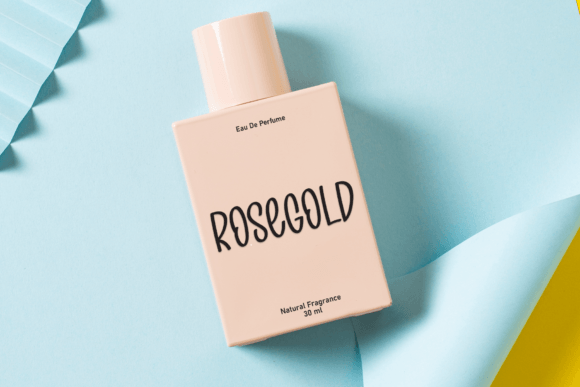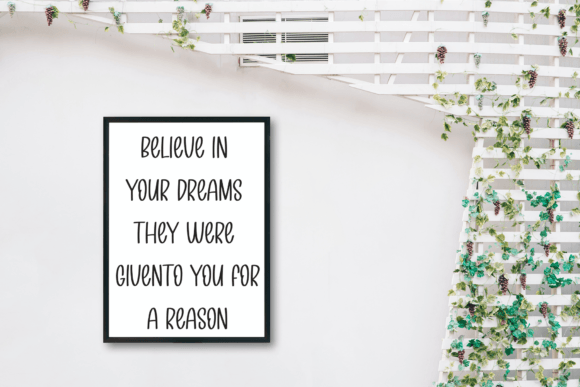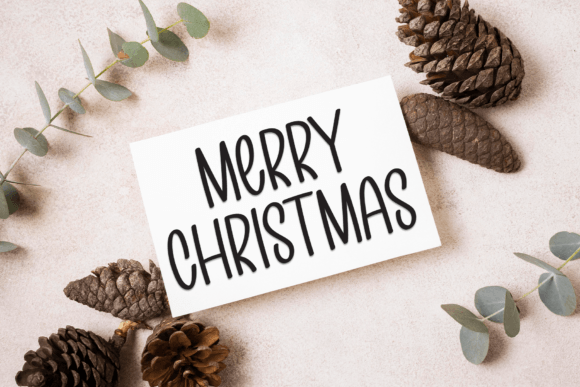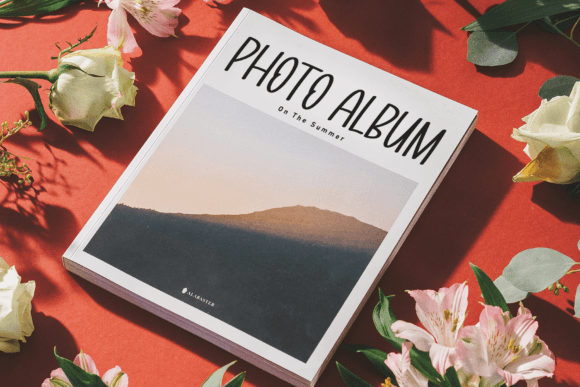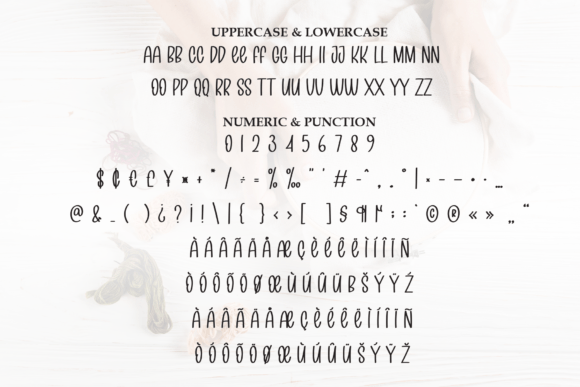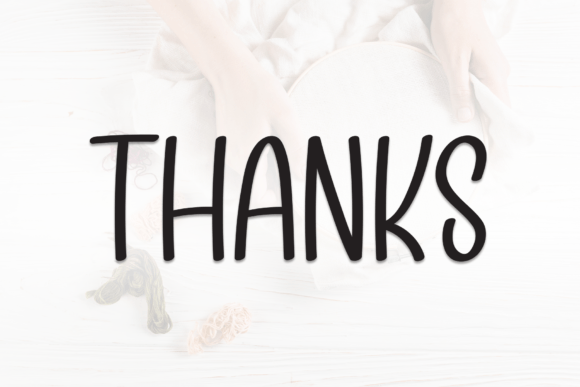
Introducing Handmade Font: A Sweet and Friendly Handwritten Display Font
Are you looking for a font that can add a personal touch to your designs? Do you want to create wedding invitations, cards, or other materials that exude warmth and friendliness? Look no further than Handmade Font, a beautiful handwritten display font that’s perfect for adding a fun and playful touch to your projects.
What is Handmade Font?
Handmade Font is a carefully crafted handwritten display font that’s designed to bring a sense of sweetness and friendliness to your designs. With its cute and fun style, this font is ideal for creating wedding invitations, cards, and other materials that require a personal touch. Whether you’re a designer, crafter, or DIY enthusiast, Handmade Font is the perfect choice for adding a touch of warmth and personality to your projects.
Key Features of Handmade Font
- Handwritten style: Handmade Font features a beautiful handwritten style that’s perfect for creating personal and heartfelt designs.
- Cute and fun: This font is designed to be cute and fun, making it ideal for creating designs that require a playful touch.
- Display font: Handmade Font is a display font, making it perfect for headlines, titles, and other prominent text elements.
- Easy to read: Despite its playful style, Handmade Font is easy to read, making it perfect for creating designs that require a clear and concise message.
Uses for Handmade Font
Handmade Font is a versatile font that can be used for a wide range of design projects, including:
- Wedding invitations: Add a personal touch to your wedding invitations with Handmade Font.
- Cards: Create beautiful and heartfelt cards for special occasions with Handmade Font.
- DIY projects: Add a touch of personality to your DIY projects, such as crafts, scrapbooking, and journaling.
- Signage: Use Handmade Font to create eye-catching signage for events, businesses, or personal projects.
Why Choose Handmade Font?
There are many fonts available that offer a similar style to Handmade Font, but here are a few reasons why this font stands out:
- Unique style: Handmade Font has a unique style that’s both cute and elegant, making it perfect for designs that require a personal touch.
- High-quality design: This font is carefully designed to ensure that it’s clear, concise, and easy to read.
- Versatile: Handmade Font can be used for a wide range of design projects, from wedding invitations to DIY projects.
Tips for Using Handmade Font
Here are a few tips for using Handmade Font in your designs:
- Use it sparingly: Handmade Font is a display font, so use it sparingly to add emphasis to your designs.
- Pair it with other fonts: Pair Handmade Font with other fonts to create a unique and visually appealing design.
- Experiment with colors: Handmade Font looks great in a variety of colors, so experiment with different colors to find the perfect look for your design.
Handmade Font is a beautiful handwritten display font that’s perfect for adding a personal touch to your designs. With its cute and fun style, this font is ideal for creating wedding invitations, cards, and other materials that require a playful touch. Whether you’re a designer, crafter, or DIY enthusiast, Handmade Font is a great choice for adding a touch of warmth and personality to your projects.